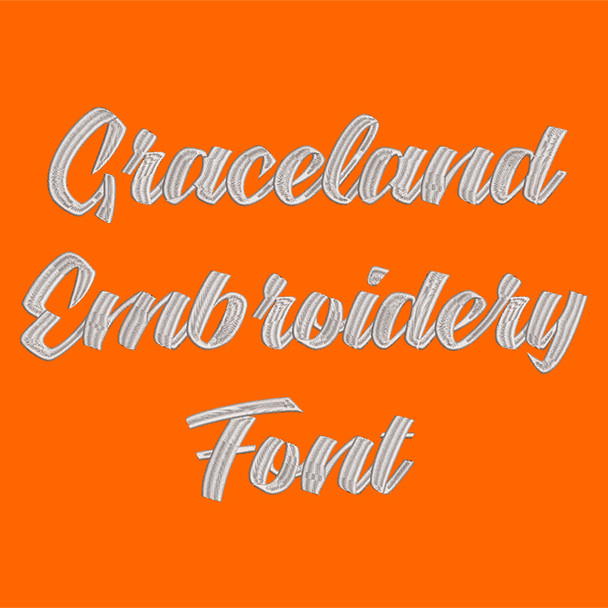
Machine Embroidery Font - Graceland Font
Title: Graceland Machine Embroidery Font
This beautiful font would look amazing as a Monogram on Totes, School bags and purses!